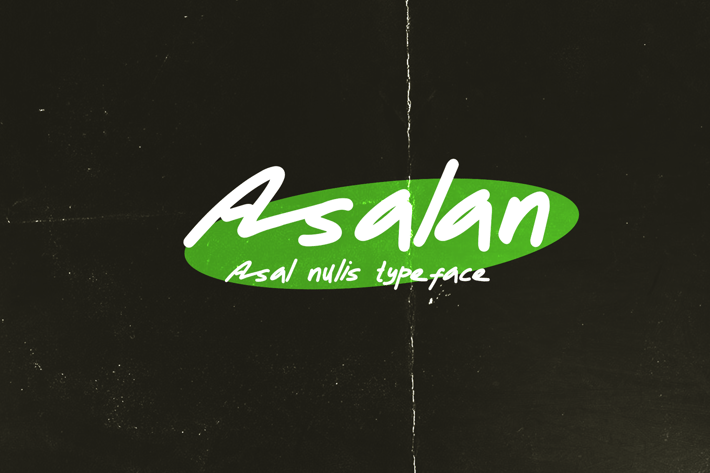
Asalan Typeface
"Asalan" is a natural handwriting font designed to mimic the organic, free-flowing strokes of handwritten text. With its casual and relaxed appearance, Asalan captures the essence of personal, handwritten notes and letters. Each character is crafted to reflect the irregularities and nuances of real handwriting, adding a touch of authenticity and warmth to any design. Ideal for personal projects, greeting cards, and any design that seeks a genuine, handwritten feel, Asalan offers a unique blend of readability and personality. Its natural and unpretentious style makes it a versatile choice for bringing a human touch to digital text.